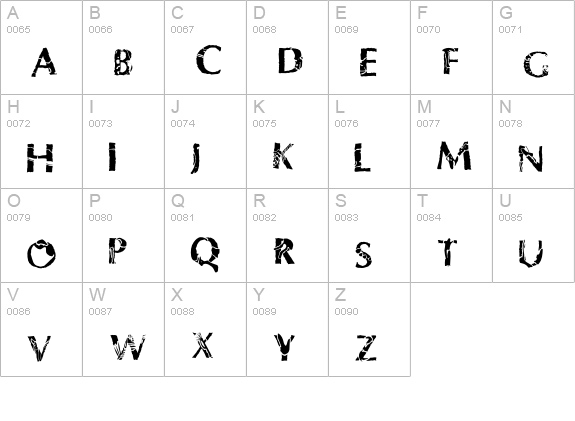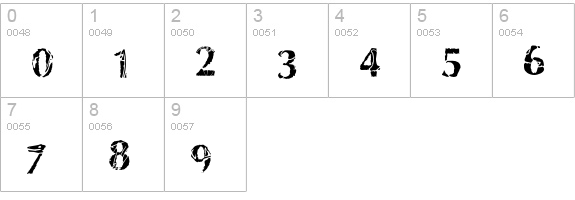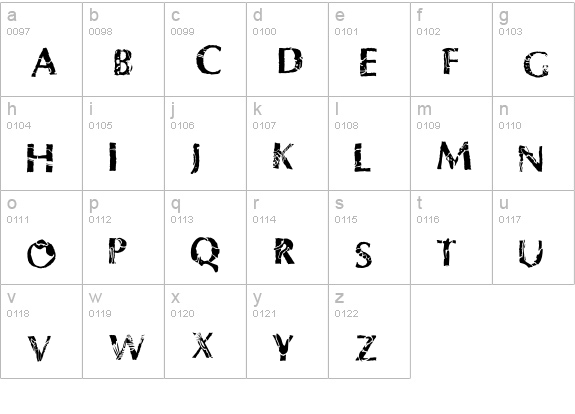
Introducing the mesmerizing Dinosaur-FontasaurusText font, a captivating typeface that will transport you back to the prehistoric era with its bold and distinctive design. This unique font is perfect for adding a touch of adventure and excitement to your projects, whether you're creating posters, logos, or social media graphics. The Dinosaur-FontasaurusText font features sharp edges and rugged lines that are reminiscent of ancient fossils, making it a truly eye-catching choice for any design. Its playful yet powerful aesthetic is sure to make a statement and leave a lasting impression on your audience. And the best part? Dinosaur-FontasaurusText font is completely free to download at FontsMarket.com! So you can unleash your creativity without any restrictions or limitations. Don't miss out on this fantastic opportunity to add a touch of prehistoric charm to your designs with the Dinosaur-FontasaurusText font. Download it now and let your imagination run wild!